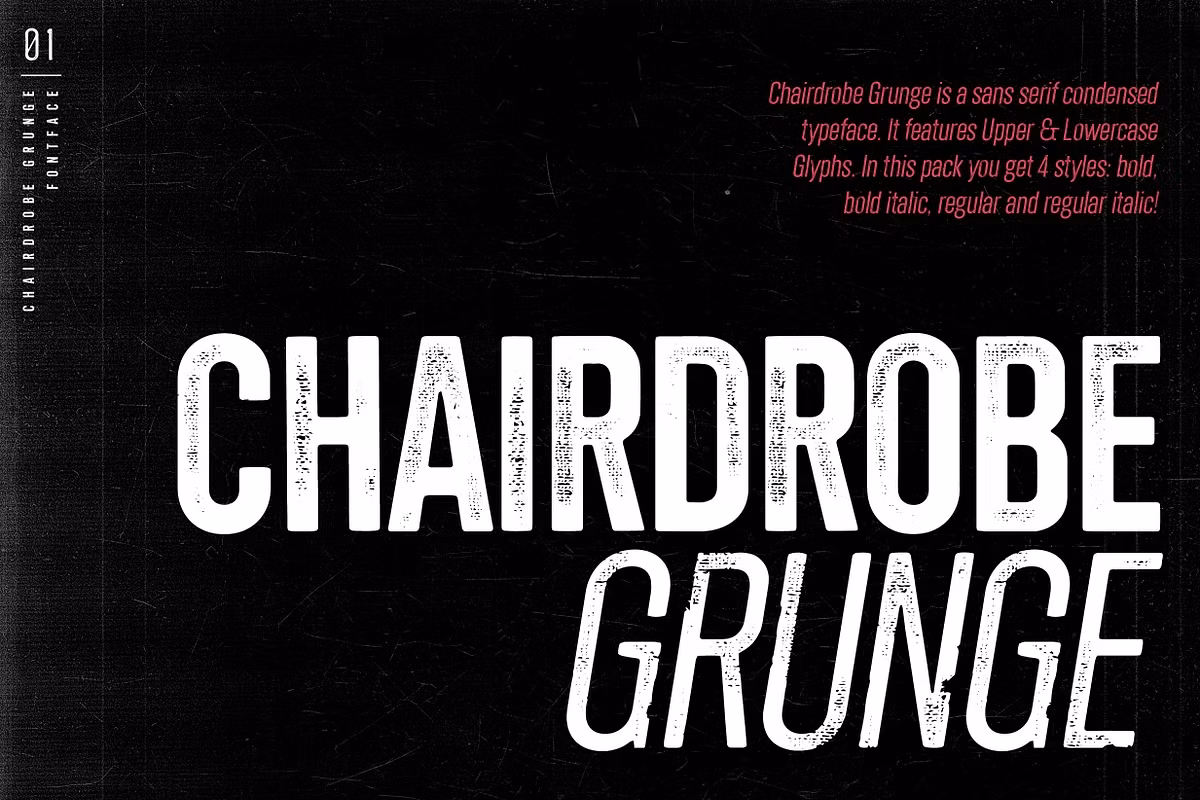
Chairdrobe Grunge Font Free Download is a bold and edgy typeface that brings an intense, raw aesthetic to your designs. With its distressed, textured strokes and rough, grungy vibe, this font is perfect for creating rebellious, underground-themed graphics, band logos, posters, t-shirt designs, and urban branding.
Its unique character shapes, combined with a weathered appearance, give your text a sense of attitude and personality. Whether you're working on album artwork, skate culture designs, or any creative project that needs a touch of grit, Chairdrobe Grunge makes a strong visual statement.